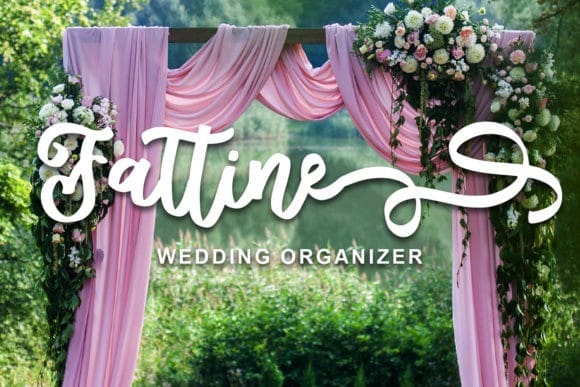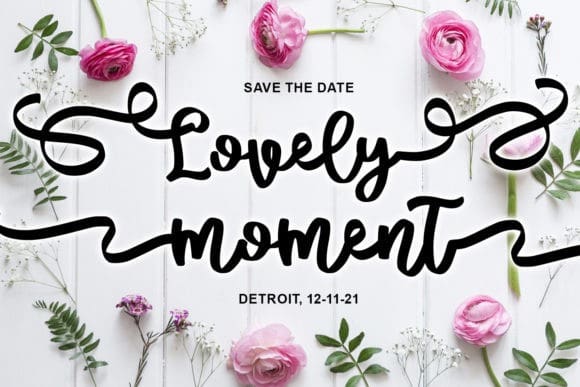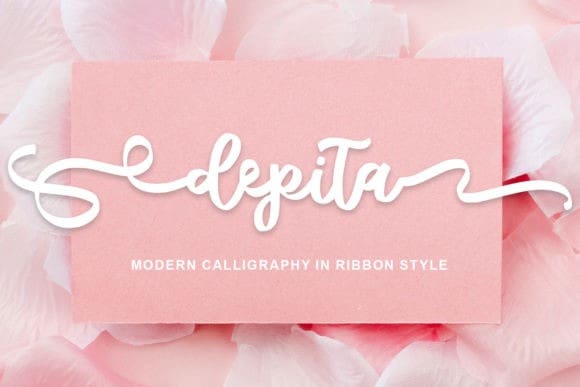
Depita Font
Depita Font by Abodaniel 18,445 downloads
Depita Font
Depita Font is a unique script font made in a ribbon style. A little bit quirky, this font looks incredibly adept on a wide variety of contexts!